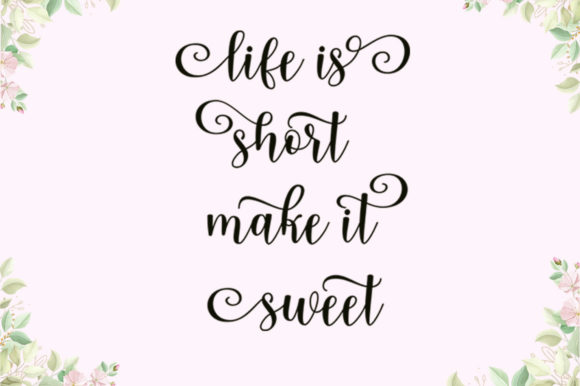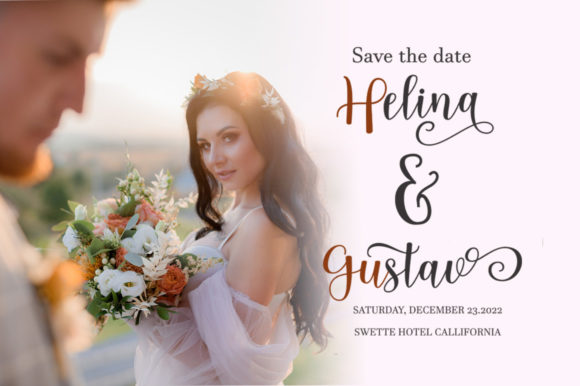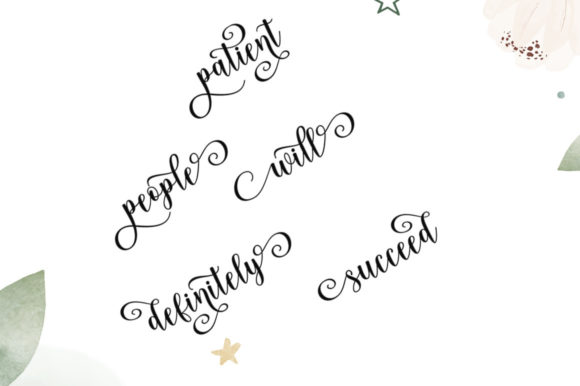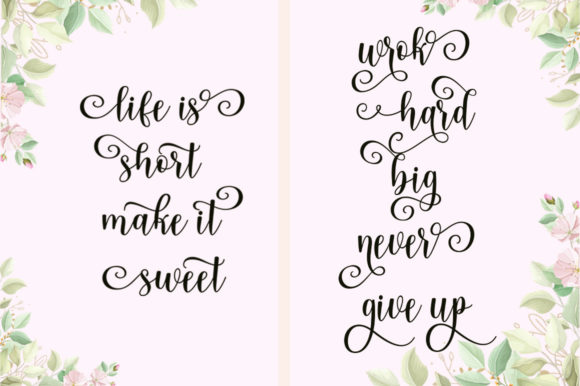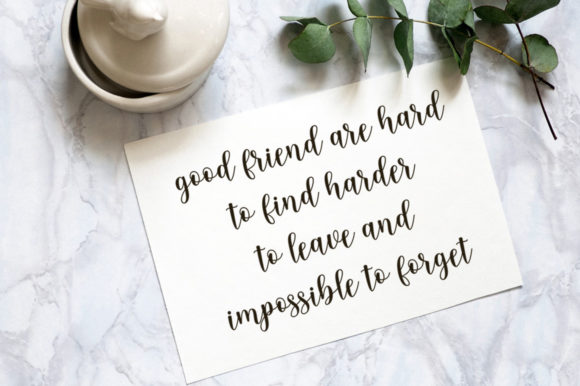
About Hello Shanty Font
Hello Shanty is an exquisite handwritten font, masterfully designed to become a true favorite. Trendy and stylish, this font will elevate each of your creations. Hello Shanty is PUA encoded which means you can access all of the glyphs and swashes with ease!